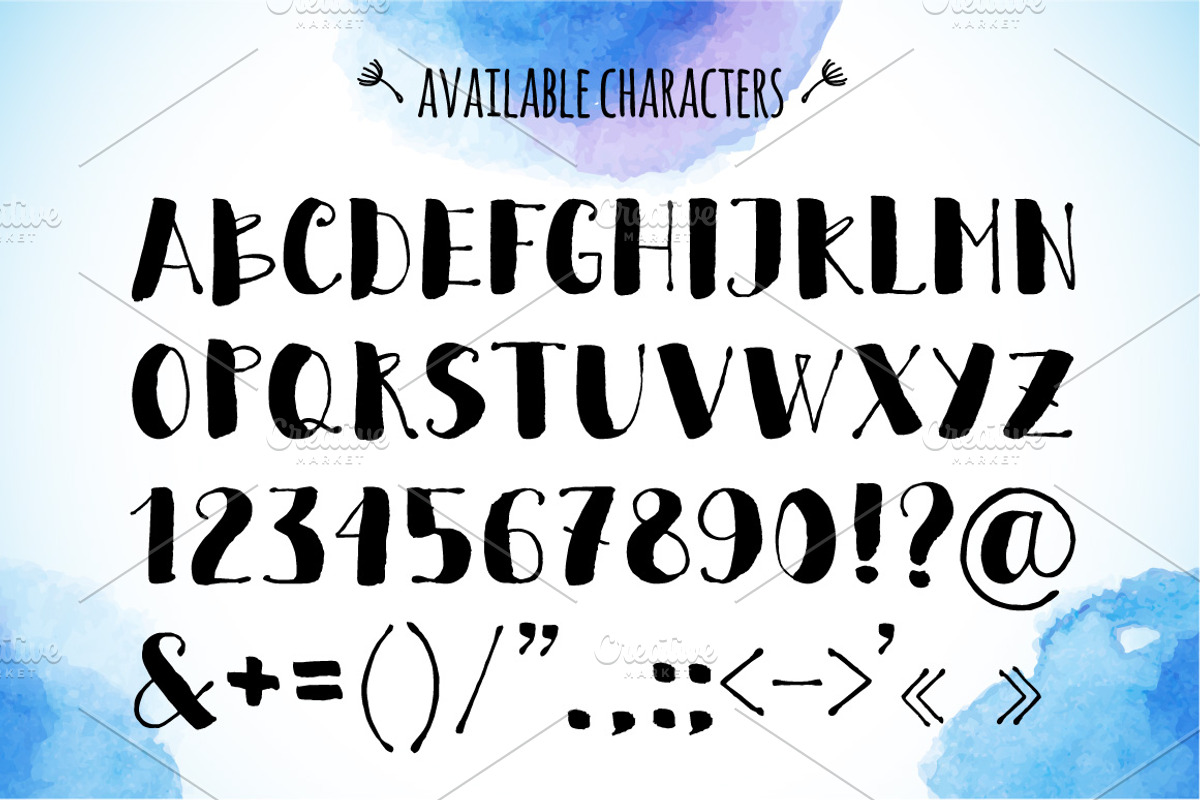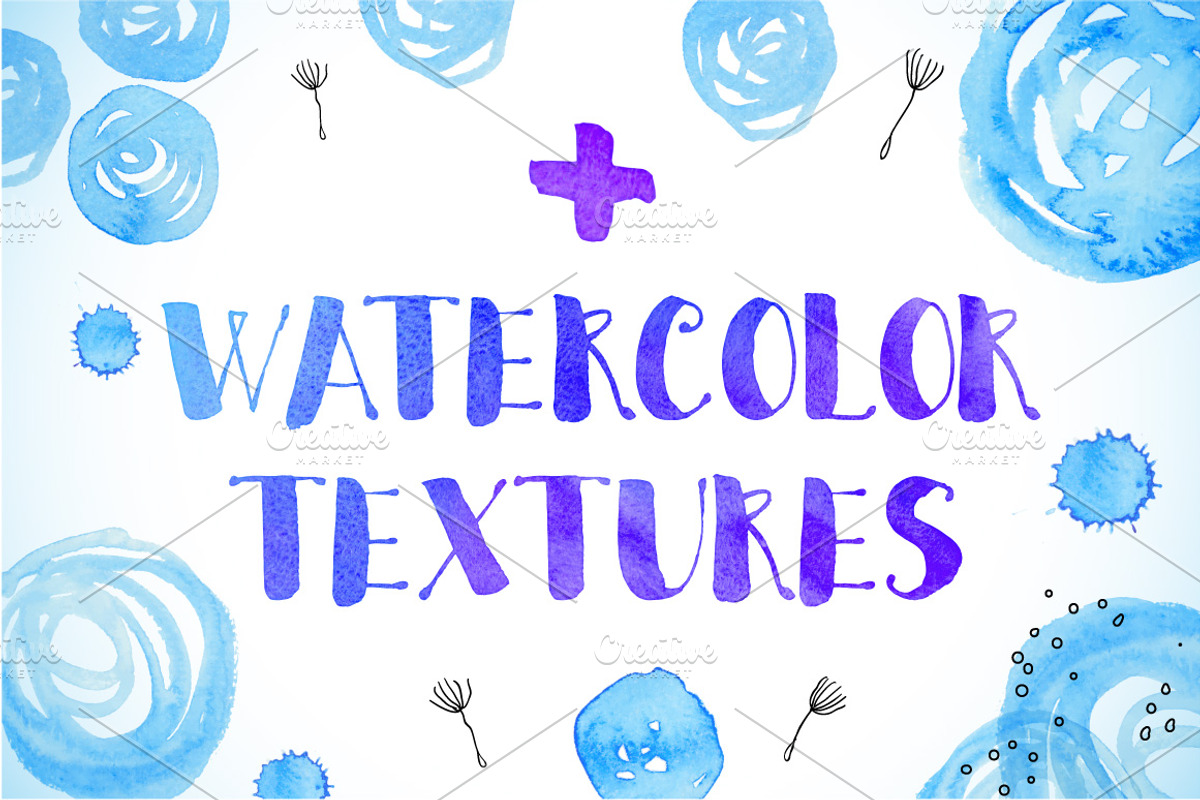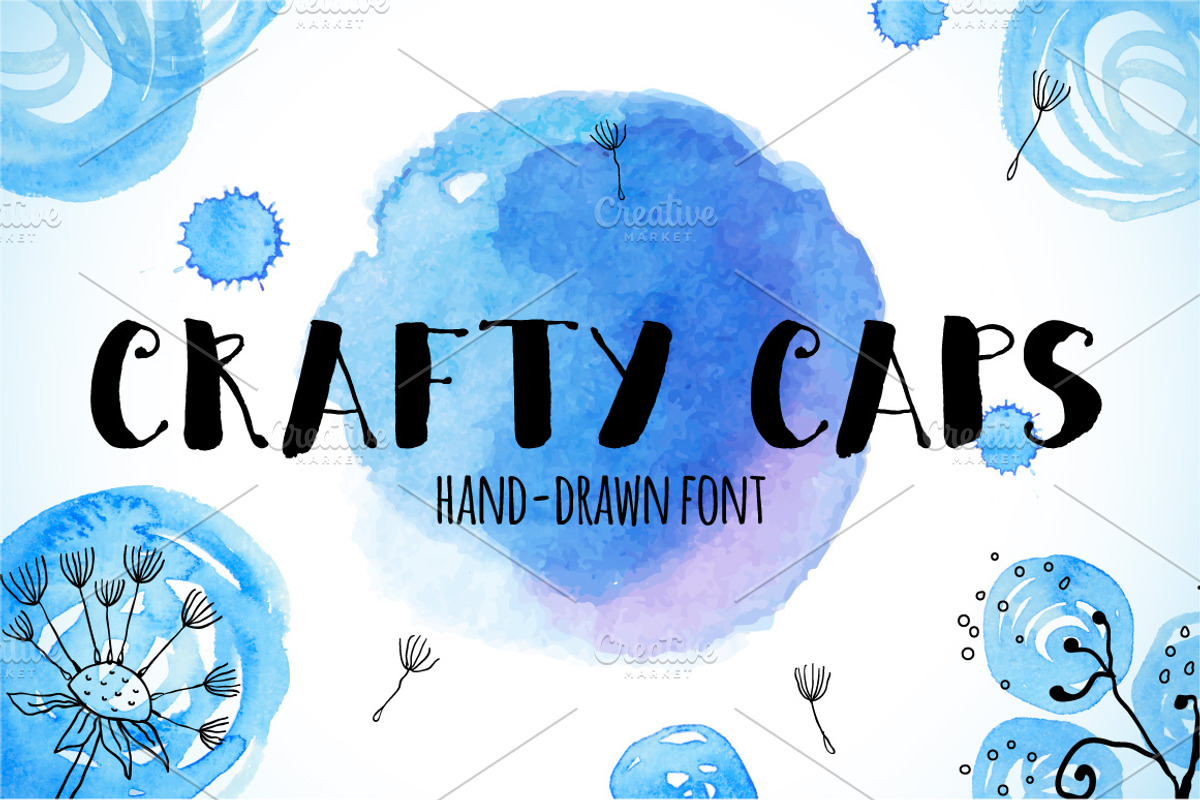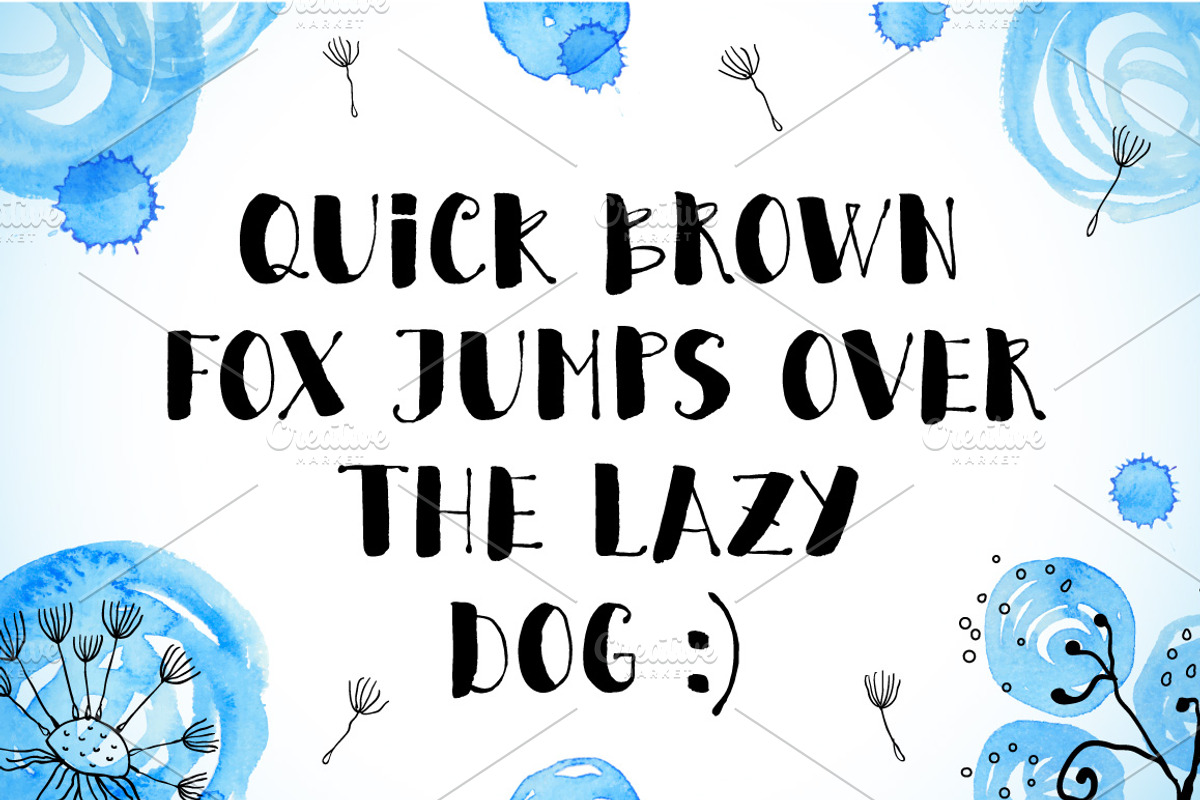
Crafty CAPS hand-drawn font
Crafty CAPS hand-drawn font by Art of Sun is a font selected for branding, posters, packaging, typography.
- This font includes A-Z basic caps characters, numbers and punctuation symbols.
Why Crafty CAPS hand-drawn font is worth a look
Crafty CAPS hand-drawn font by Art of Sun fits naturally into Branding, posters, packaging, typography.